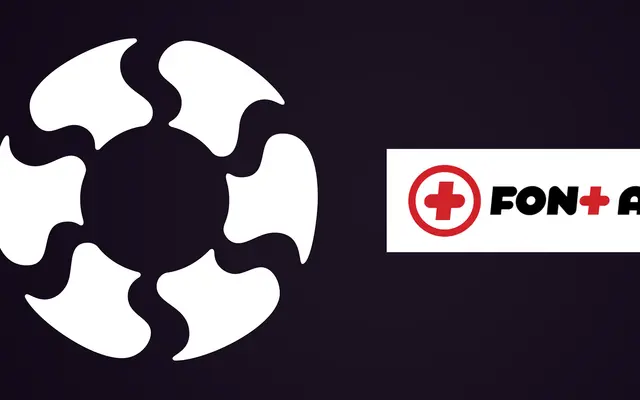
Font Aid VII – Here Comes The Sun
A single-glyph charity contribution to Font Aid VII, combining sun and flood-rescue imagery as a symbol of hope.
Created by Dharma Type as part of the Font Aid VII collaborative charity project organised by SOTA, this contribution pairs the sun with a floating rescue tube to reference flood disaster relief. All proceeds from the Font Aid font are donated to charitable organisations. The piece is illustrative rather than typographic, functioning as a symbolic pictogram within the collective font.
A symbolic, illustrative dingbat or display glyph contribution to the Font Aid VII charity project; the imagery is pictorial and decorative rather than typographic in a conventional sense.